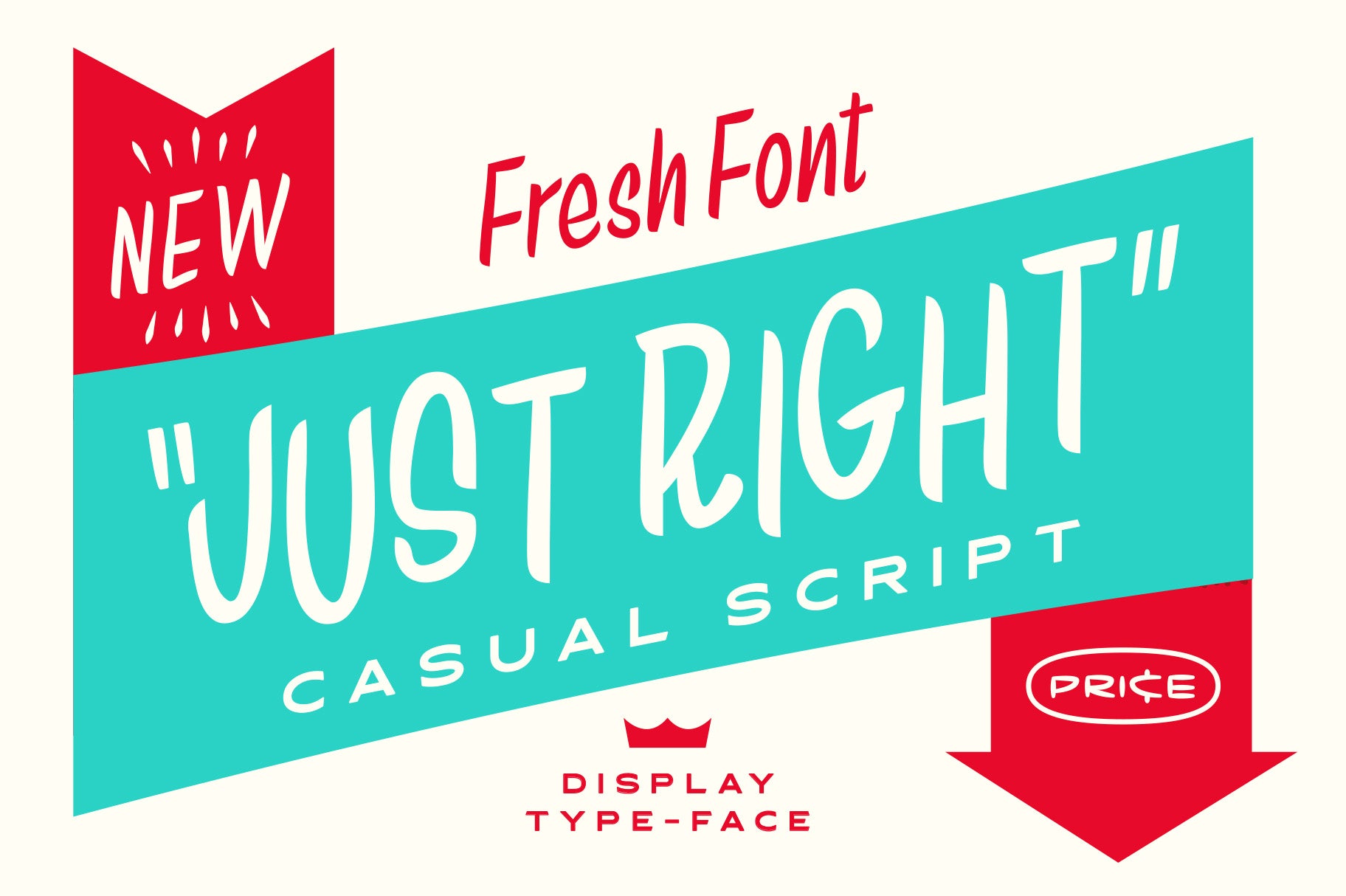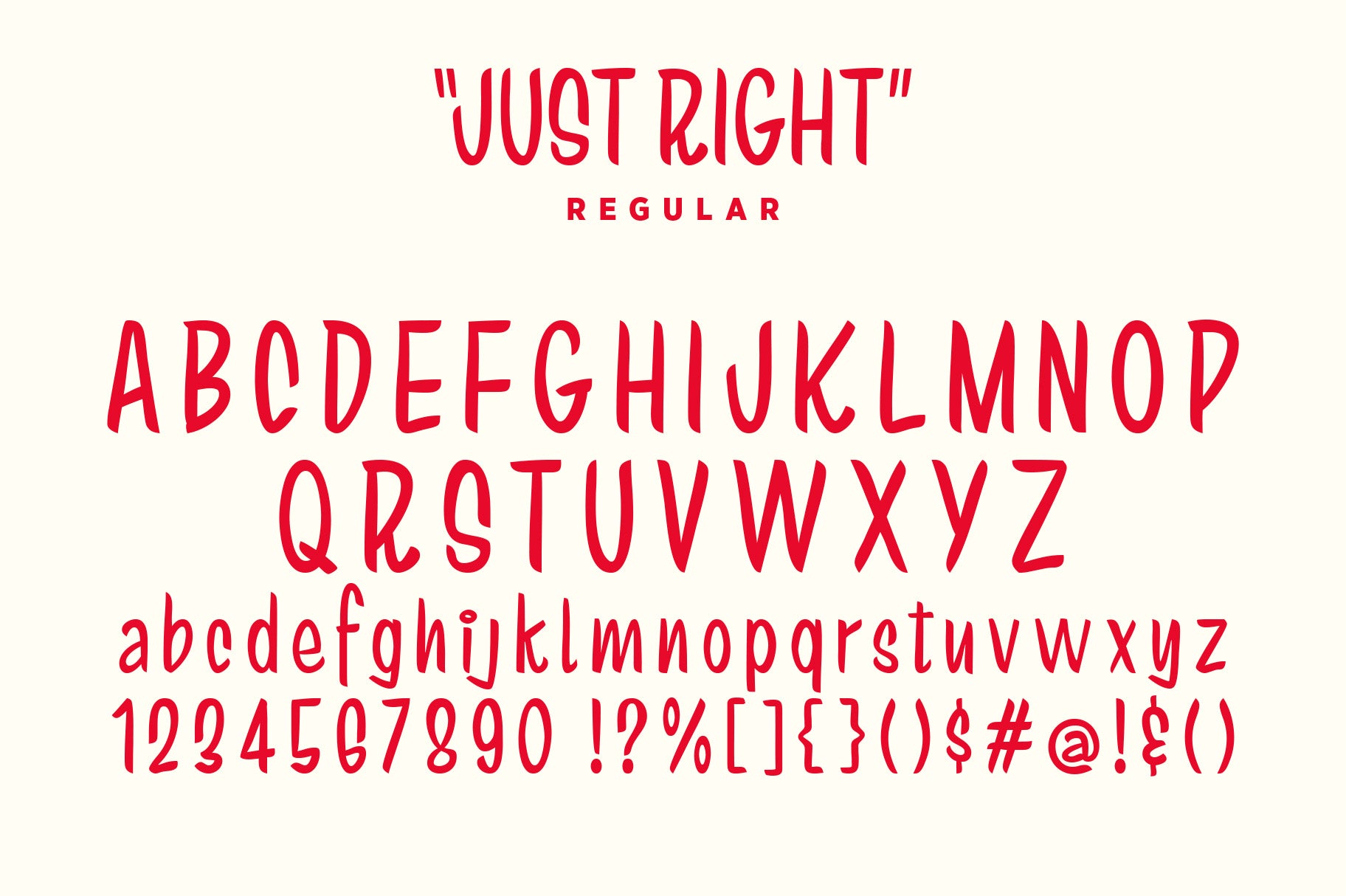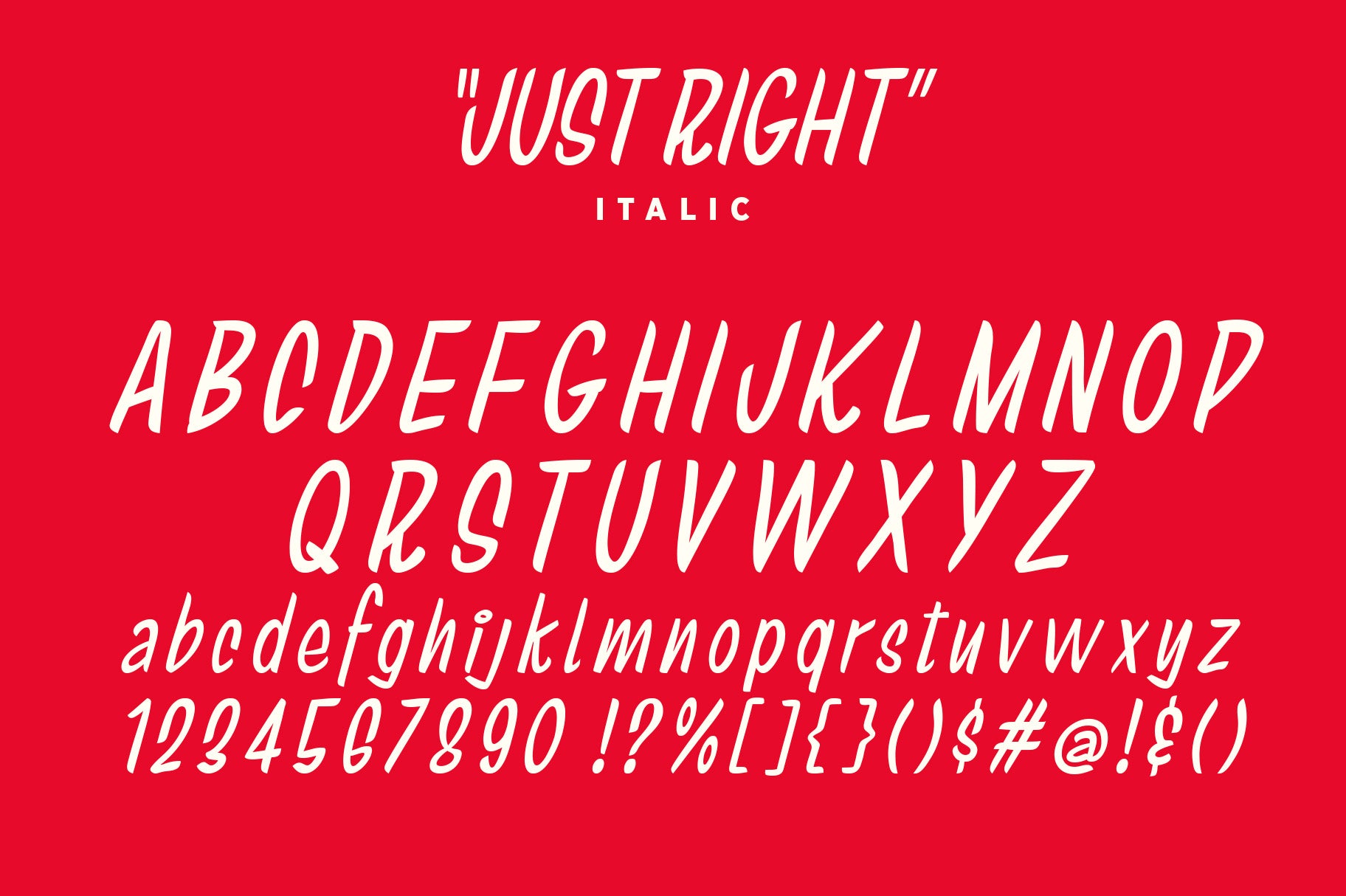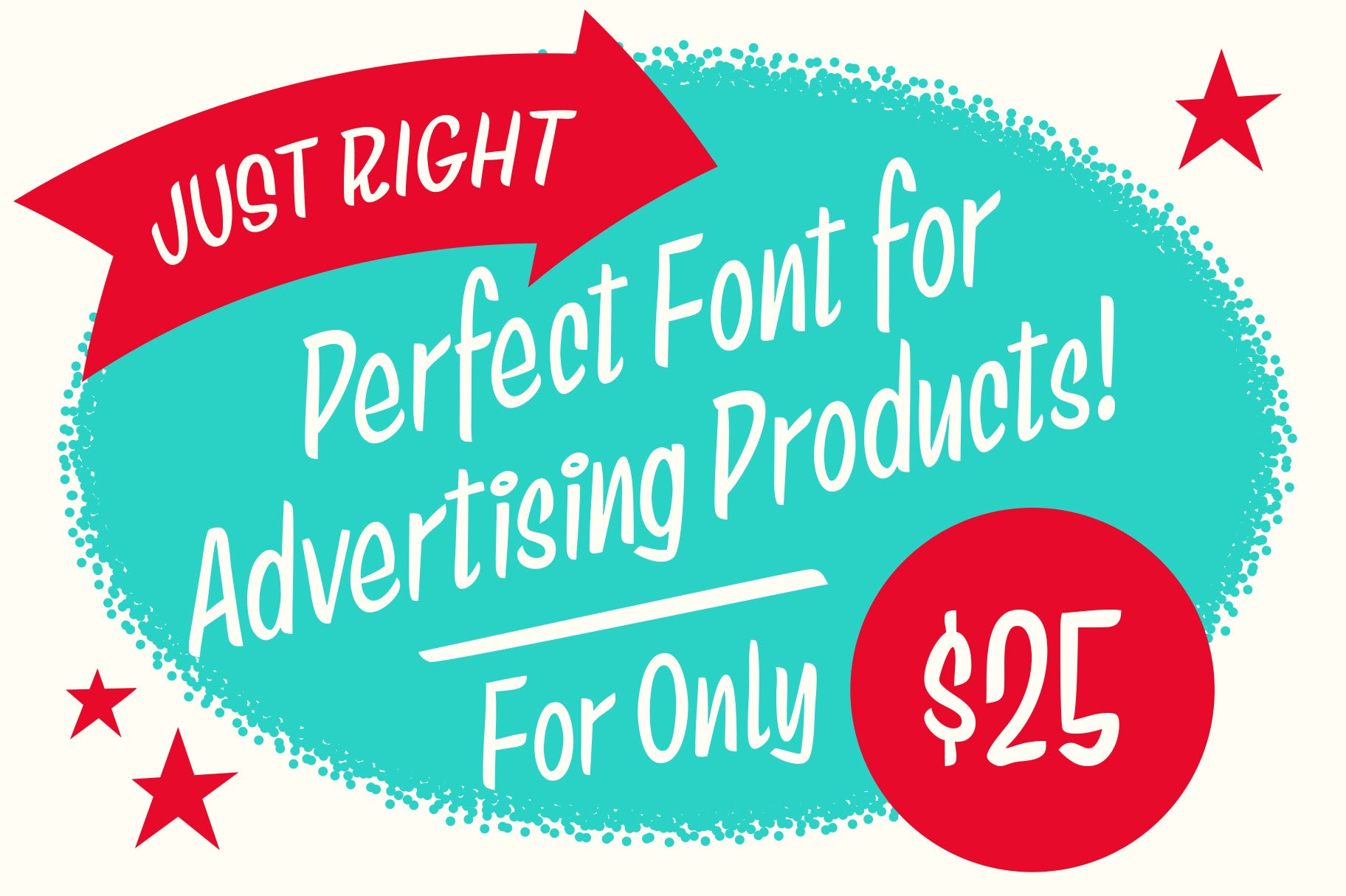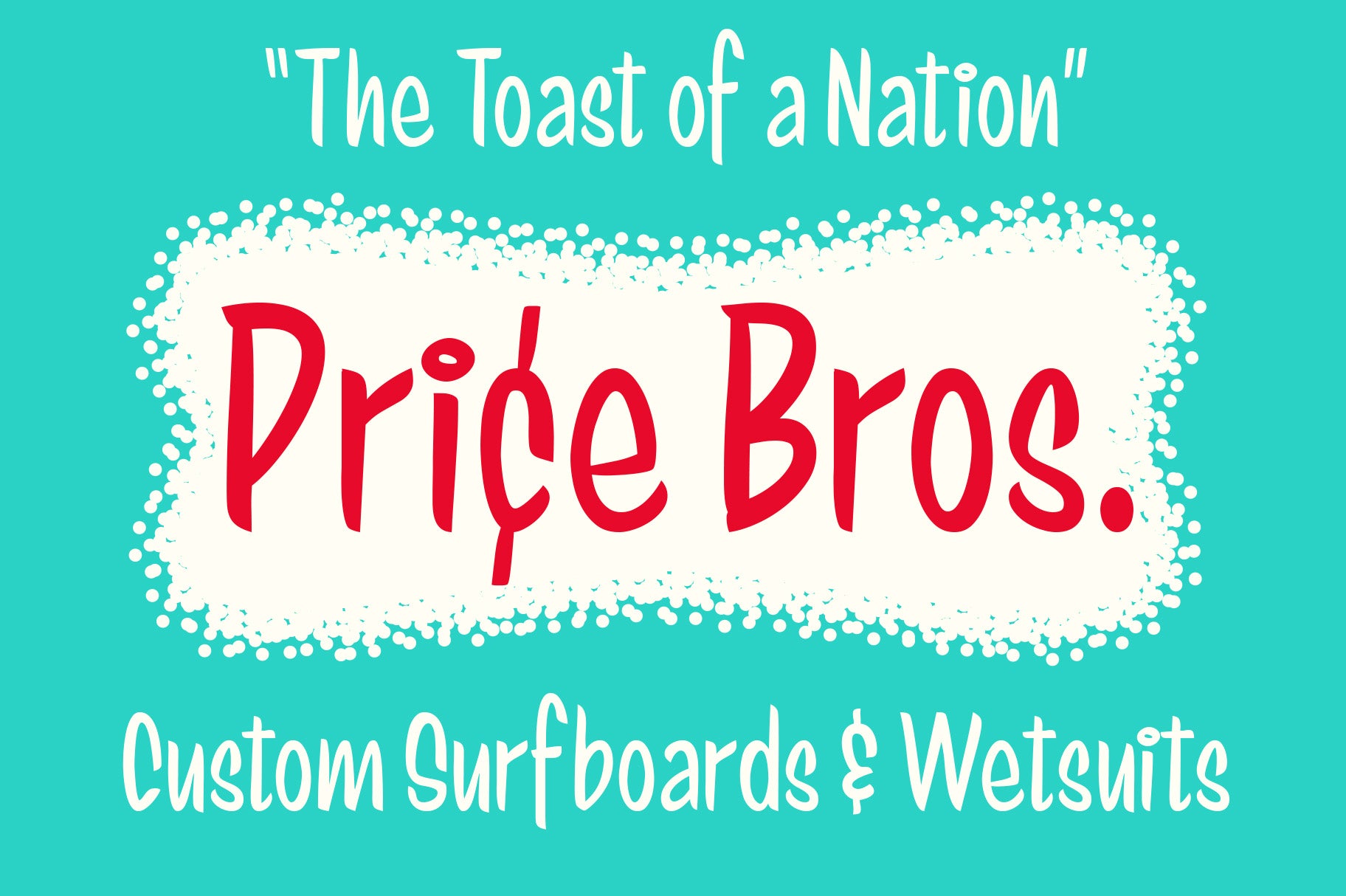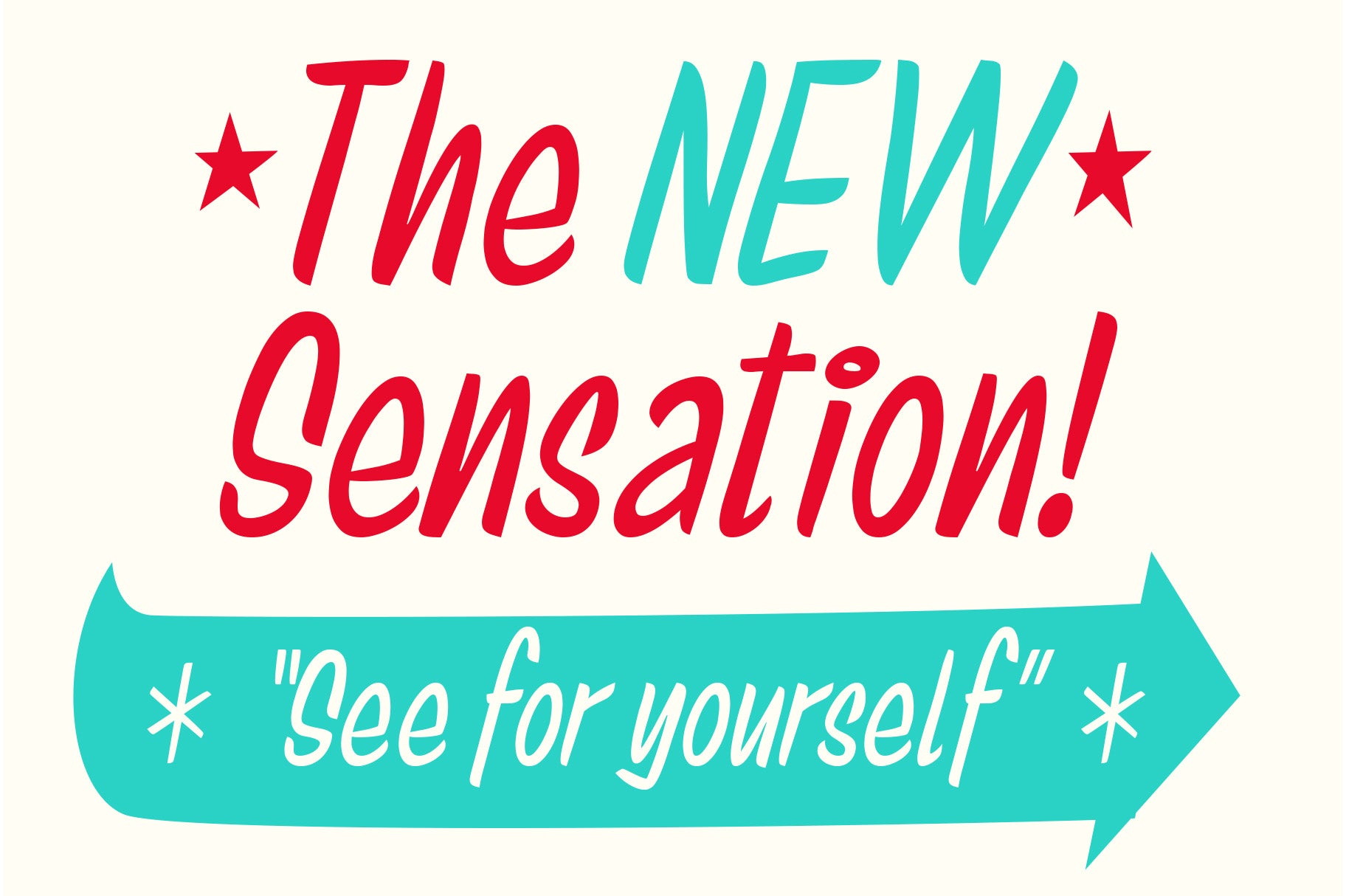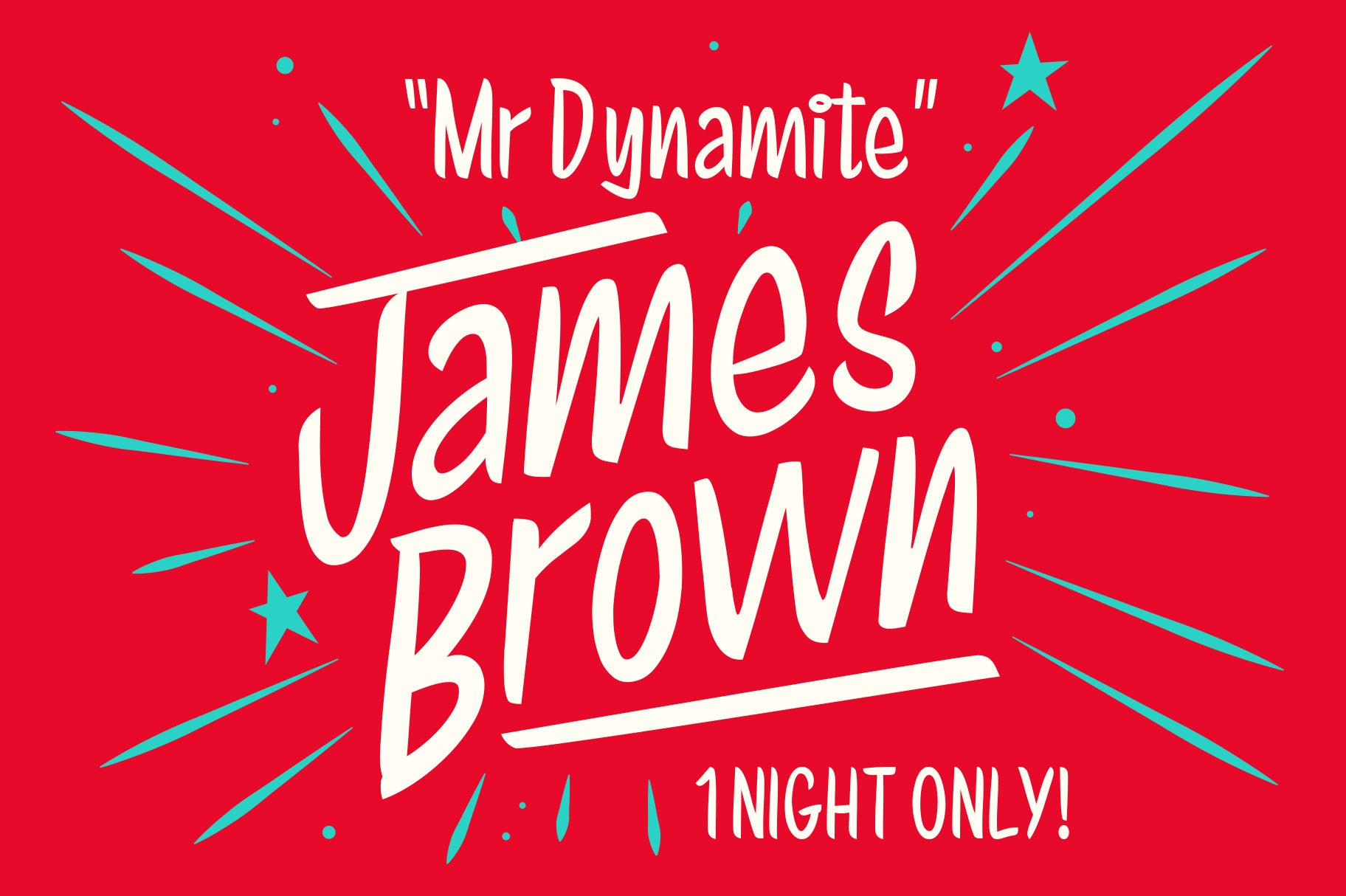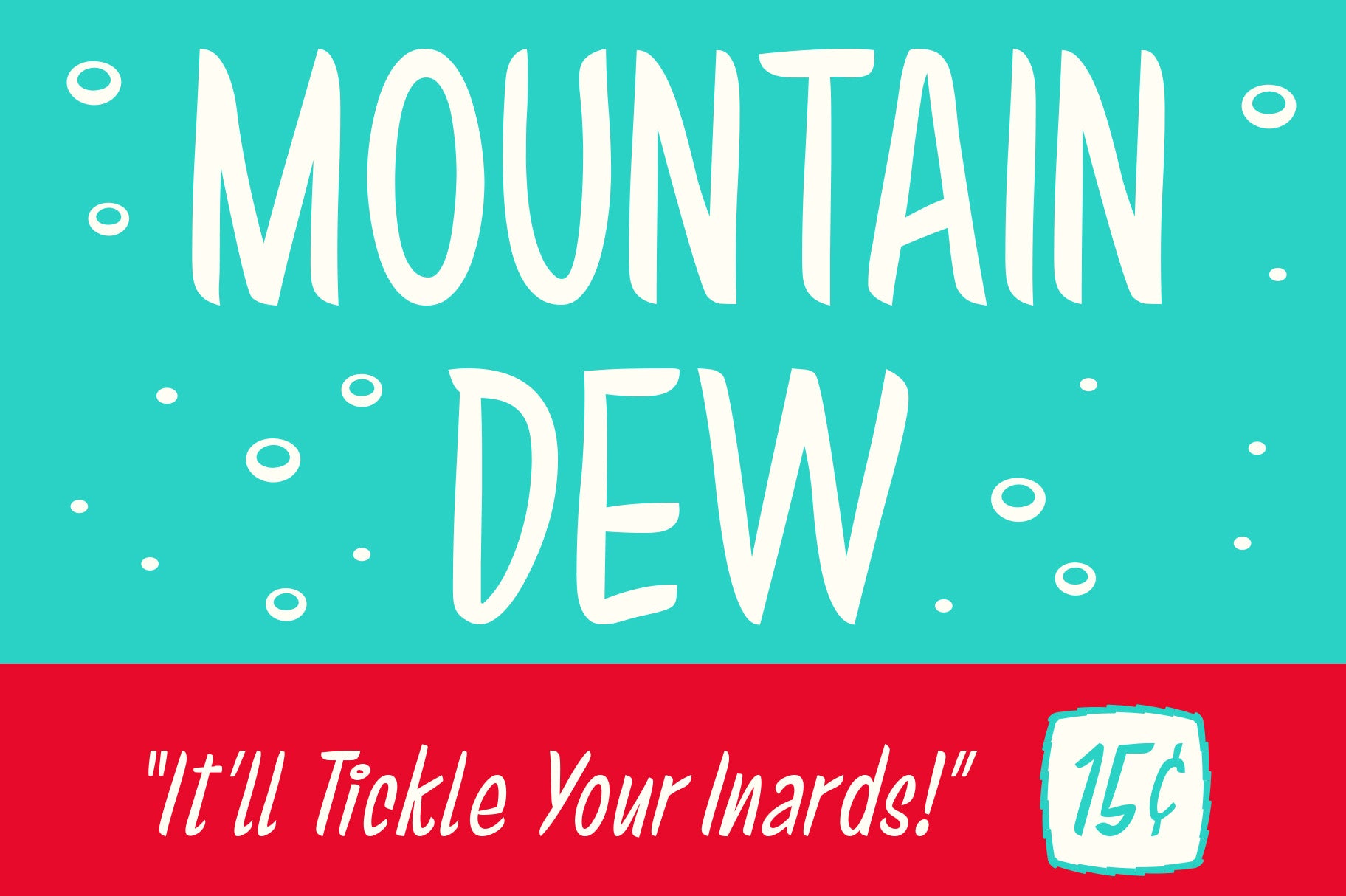
Just Right Font
Just Right is a display font created by Australian Illustrator Travis Price. Inspired by 1950’s advertising - Just Right Casual Script is the perfect choice if you’re looking to add some cool retro vibes to your work.
Foundry: Travis Price
Travis Price font creator, illustrator, and designer.
Travis price is an illustrator and designer with over 20 years of experience working for some of the most innovative advertising and clothing labels in the world.
His work has been used by ABC, BMG Music, GQ Magazine, Island Def Jam Records, Jack Daniels, Marvel Comics, Virgin, Warner Music, Pixies and more.